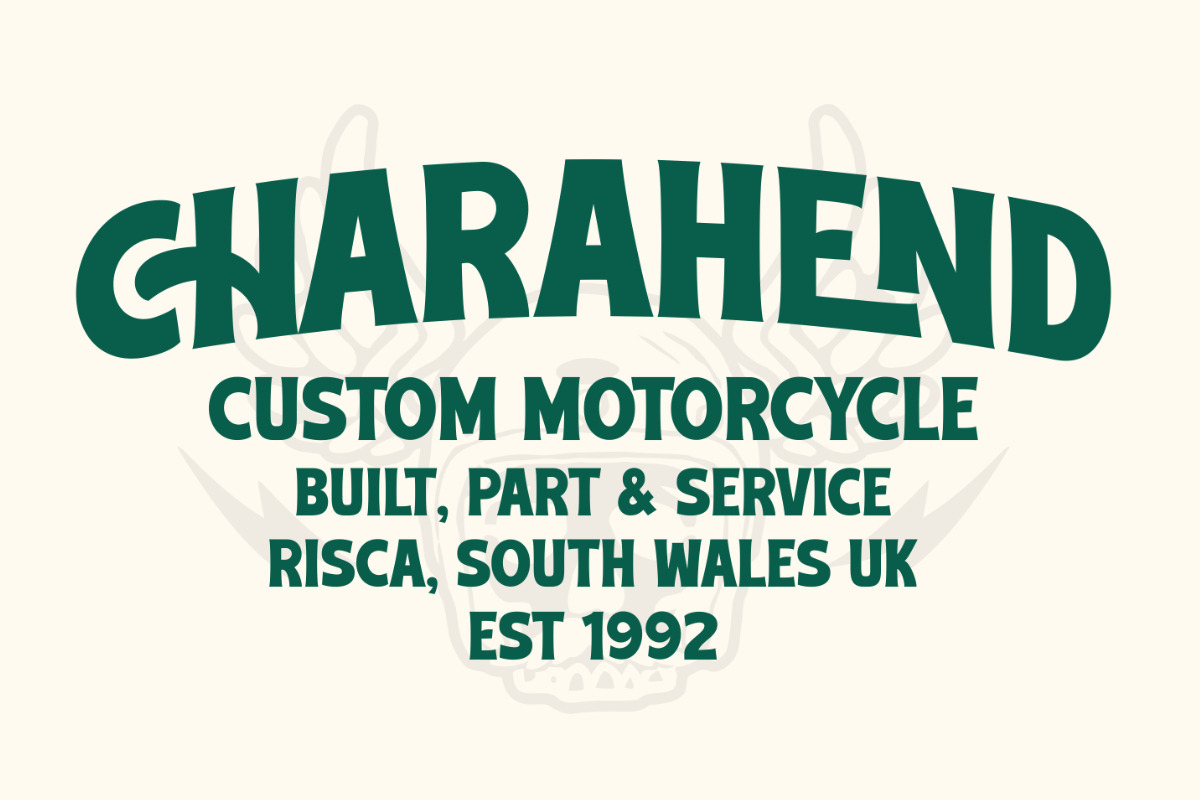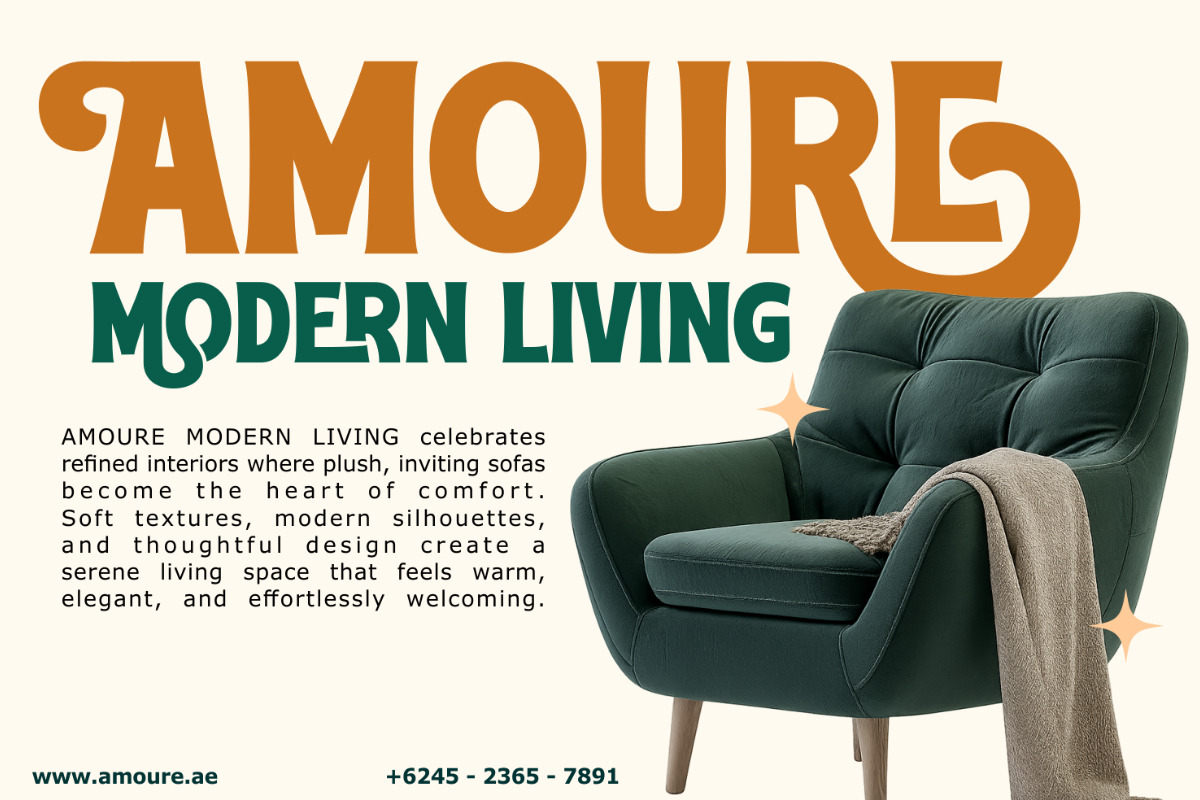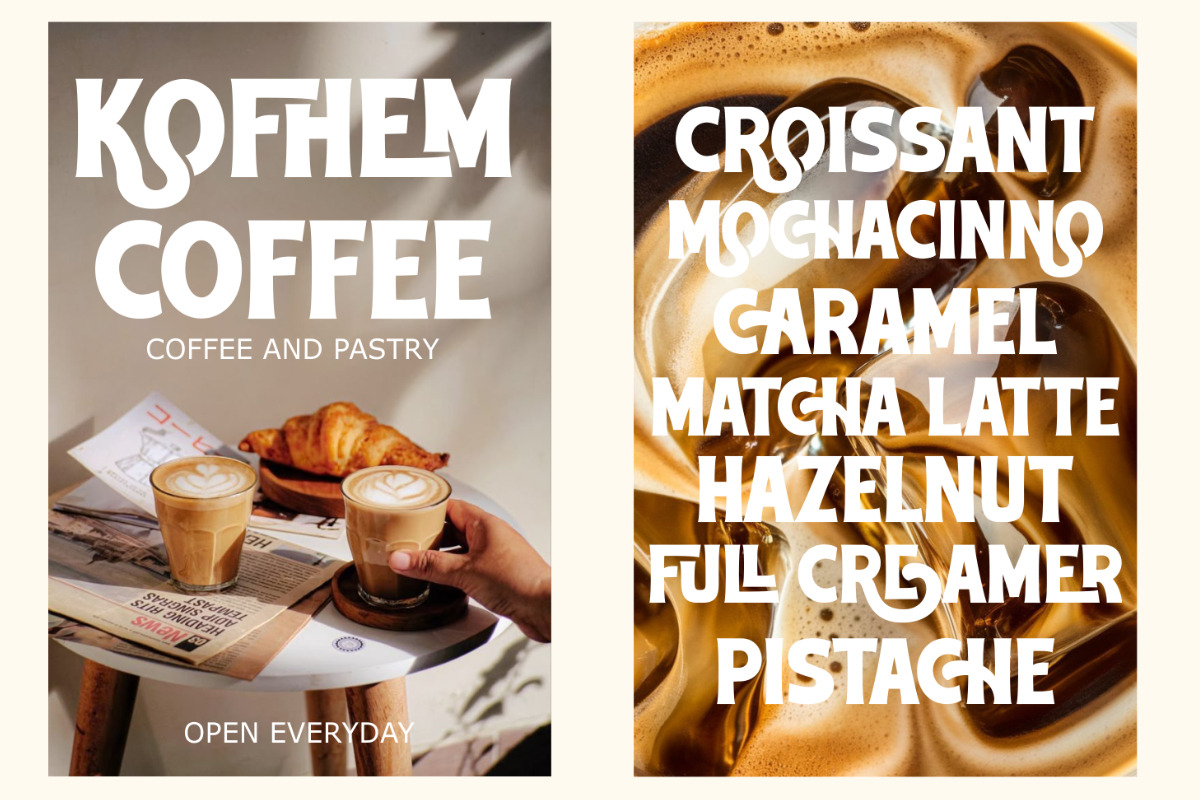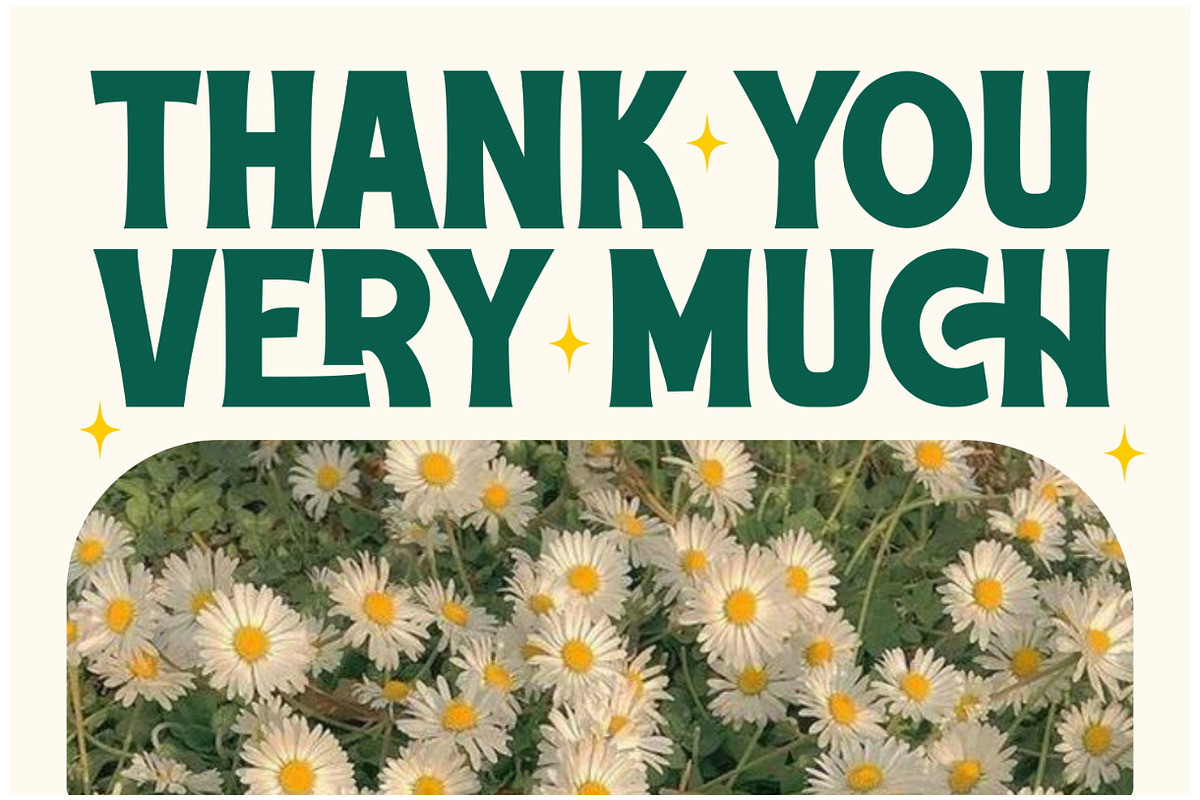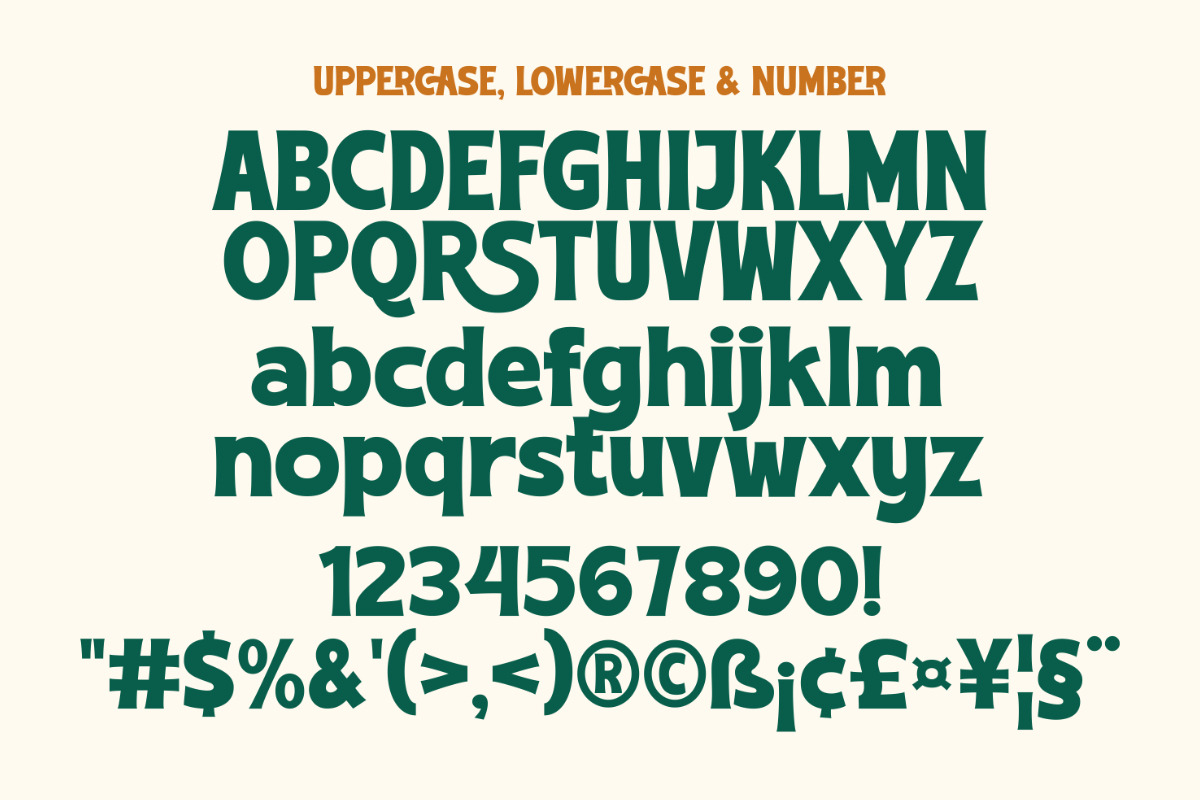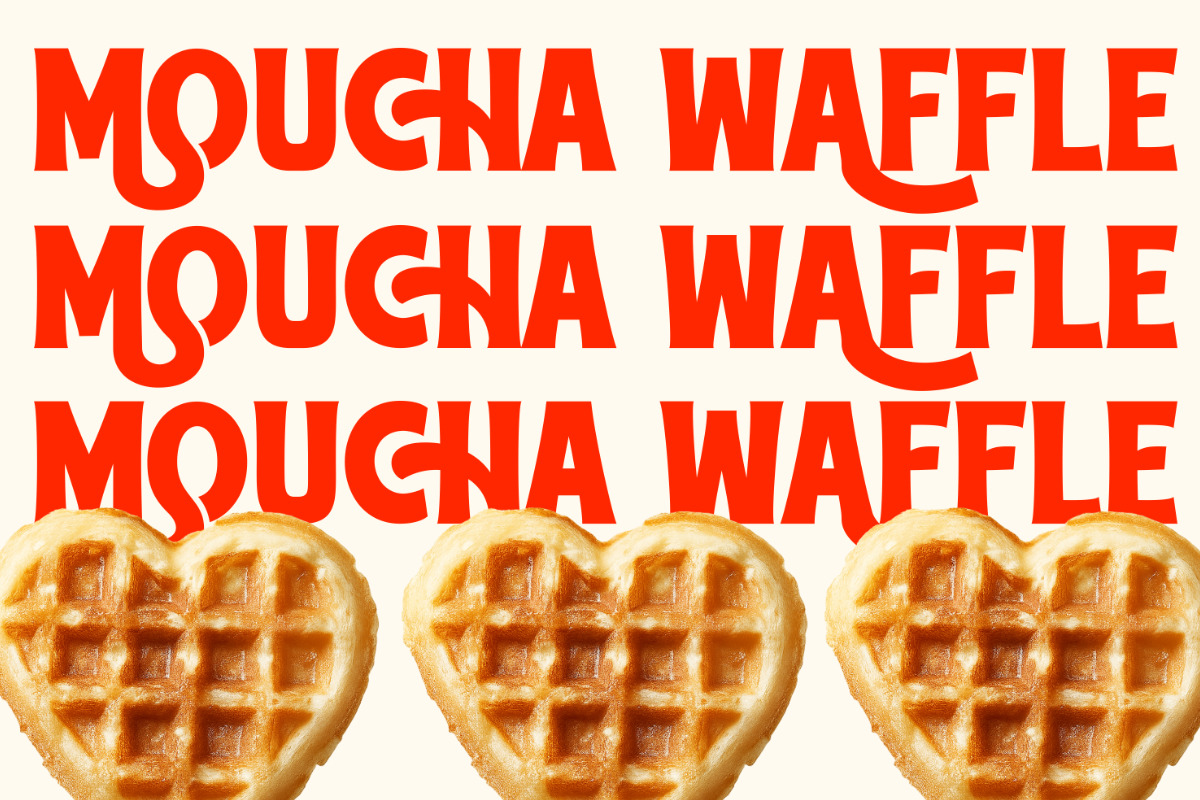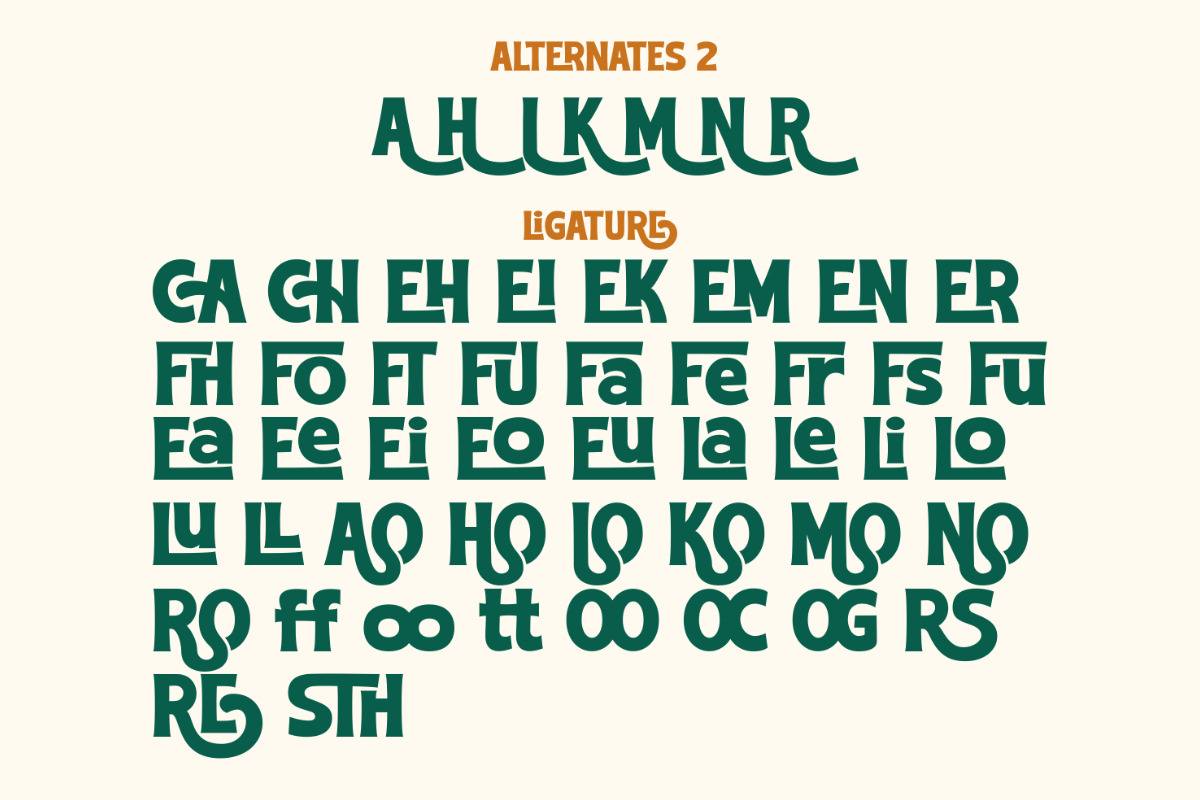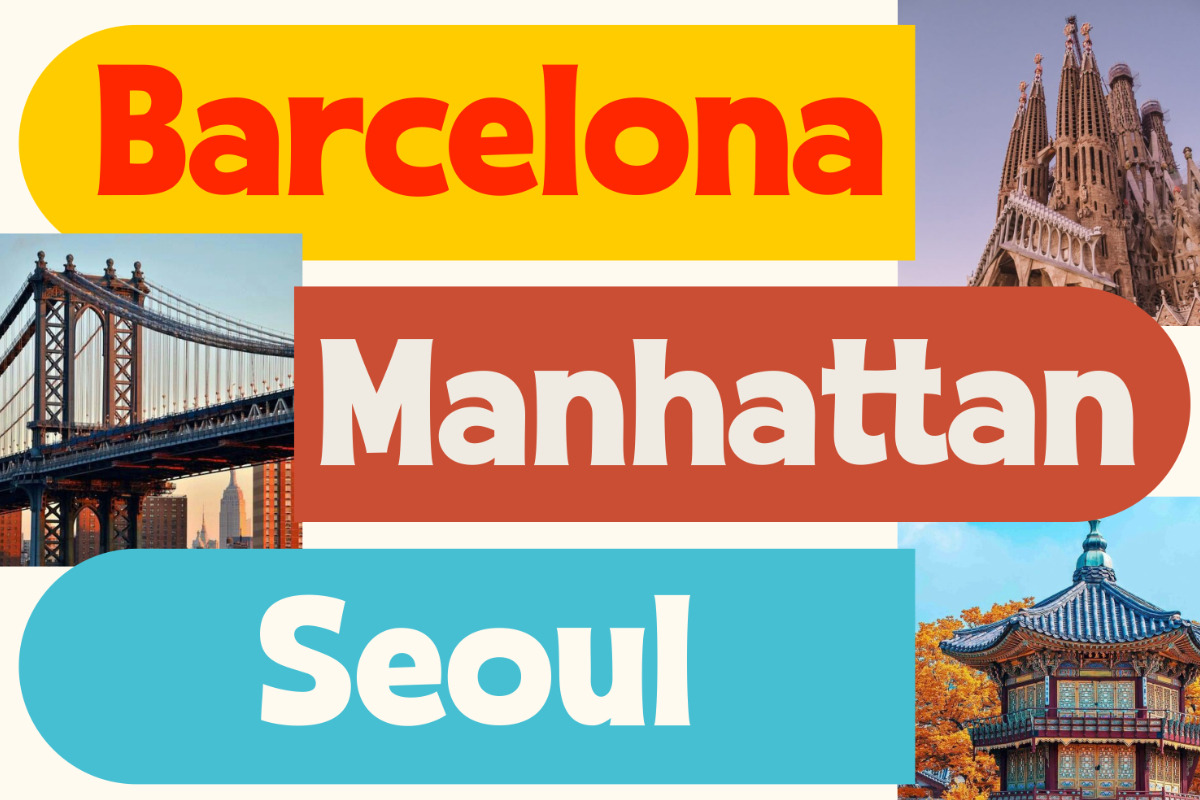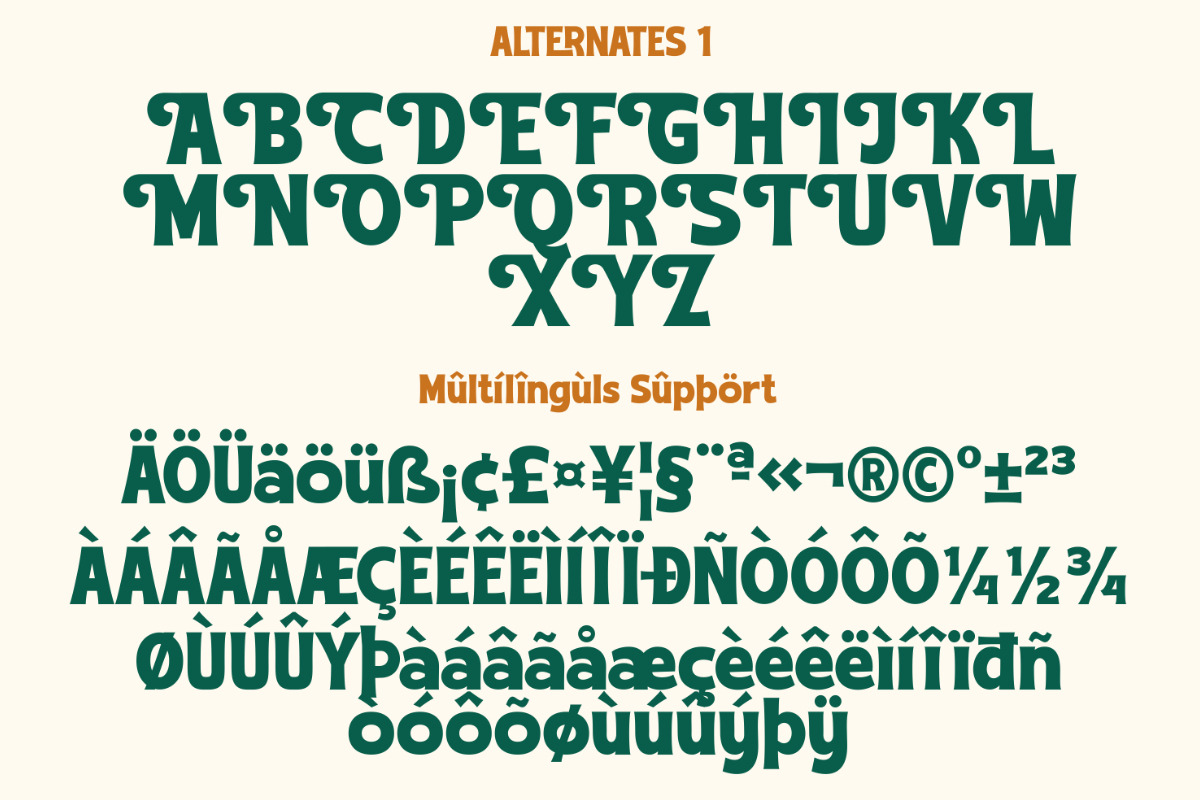
Choldem Rosther - Vintage Serif Disp
Choldem Rosther is a vintage serif font crafted to capture the charm of classic typography with a refined, timeless character. Inspired by old editorial prints, heritage branding, and traditional signage, this font blends elegant serif details with strong letterforms—perfect for designs that require authenticity, sophistication, and historical depth.
With carefully shaped serifs, balanced contrast, and graceful proportions, Choldem Rosther delivers a nostalgic feel while remaining clean and readable for modern use. It’s an excellent choice for branding, logos, packaging, book covers, posters, labels, and editorial layouts that demand a classic yet professional presence.
Whether you’re building a heritage brand or adding vintage flair to contemporary design, Choldem Rosther brings character, elegance, and lasting appeal.
Highlighted Features:
- Uppercase, Lowercase, Number, and Punctuation
- Special alternates and ligatures
- Mültîlíñgúãl Sùppört for; ä ö ü Ä Ö Ü ß ¿ ¡